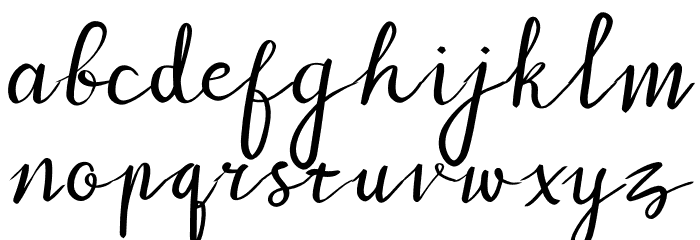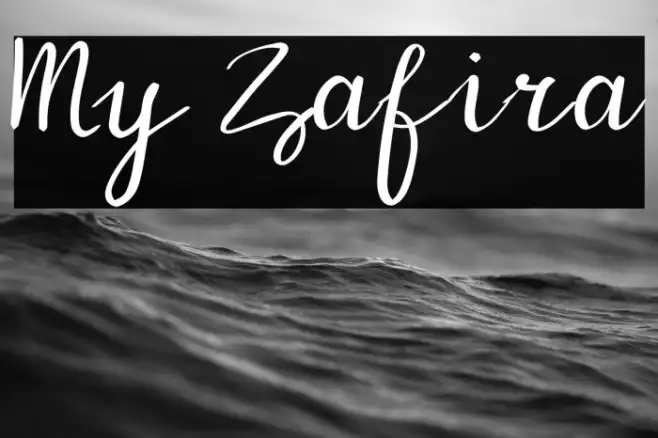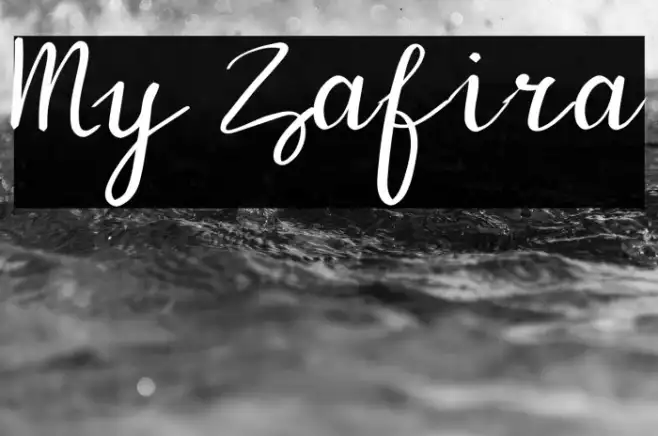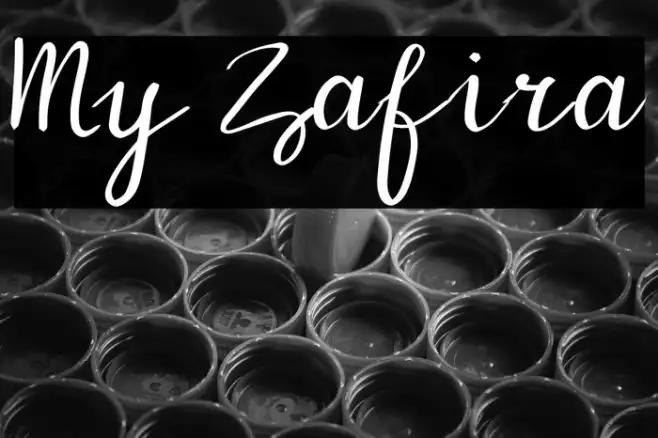
My Zafira Font
This font features a dynamic and flowing script style, characterized by its elegant and fluid strokes. The uppercase letters are bold and expressive, with a slight slant that adds a sense of movement and grace. The lowercase letters maintain the same fluidity, with smooth connections between characters that enhance readability. The overall design is reminiscent of traditional calligraphy, yet it incorporates modern elements that make it suitable for contemporary use. The font's playful yet sophisticated appearance makes it ideal for creative projects that require a personal touch.
A dynamic and flowing script font with elegant, fluid strokes.
- Proposed Projects: Ideal for wedding invitations, greeting cards, branding projects, and any design that requires a personal, elegant touch.
- Use Case: Logos, Invitations, Greeting Cards